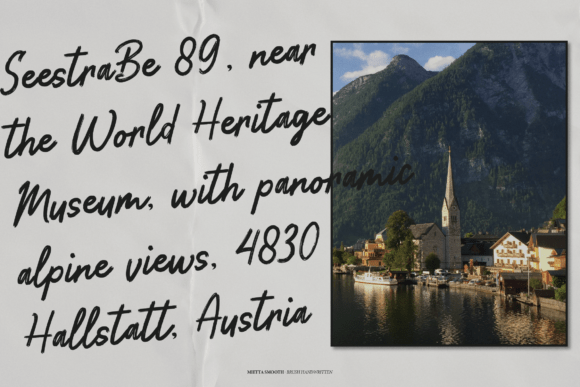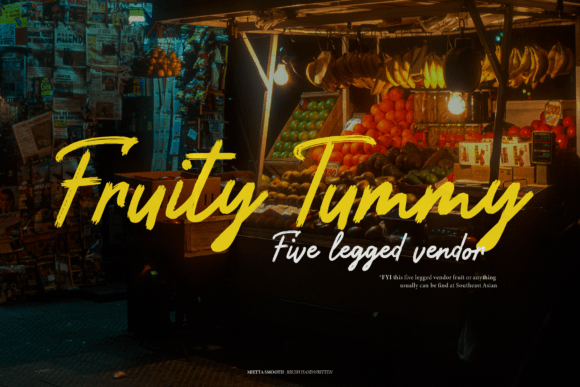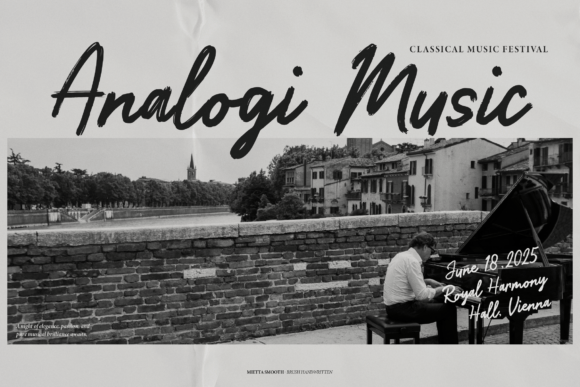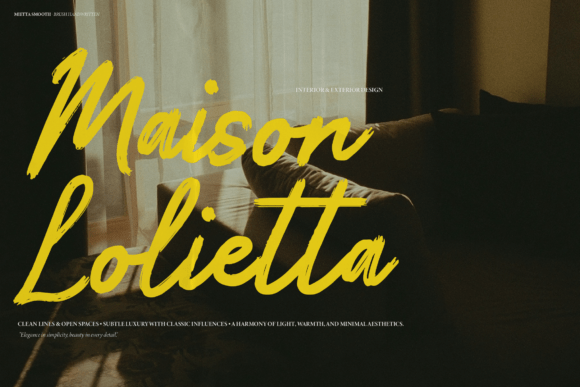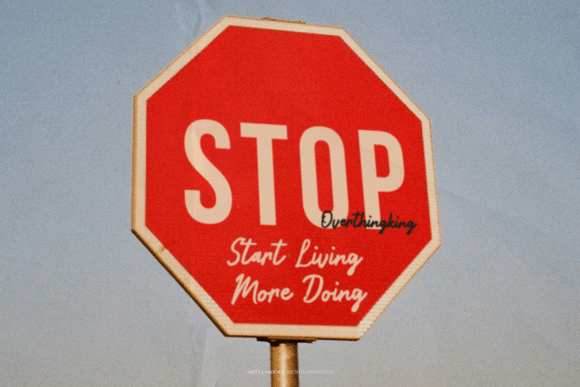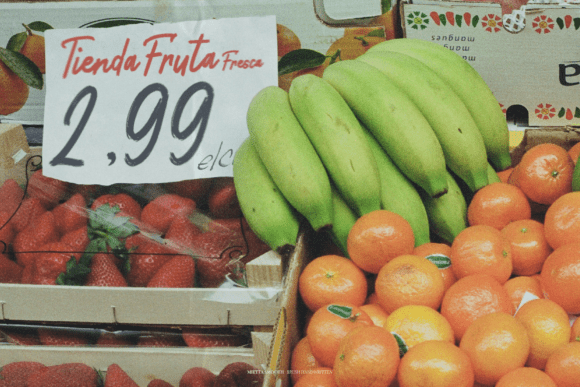
Introduction to Mietta Smooth Font
Mietta Smooth is a brush handwritten font, suitable for any projects such as: logos, branding projects, homeware designs, product packaging, mugs, quotes, posters, shopping bags, t-shirts, book covers, name card, invitation cards, greeting cards, label, photography, watermark, special events, and all your other lovely projects that need a Brush Handwritten Font taste.
Mietta Smooth is a brush handwritten font, suitable for any projects such as: logos, branding projects, homeware designs, product packaging, mugs, quotes, posters, shopping bags, t-shirts, book covers
Key Features of Mietta Smooth Font
Mietta Smooth Font offers exceptional quality and versatility, making it a valuable addition to your design toolkit. Whether you’re creating for personal projects or commercial use, Mietta Smooth Font delivers professional results.